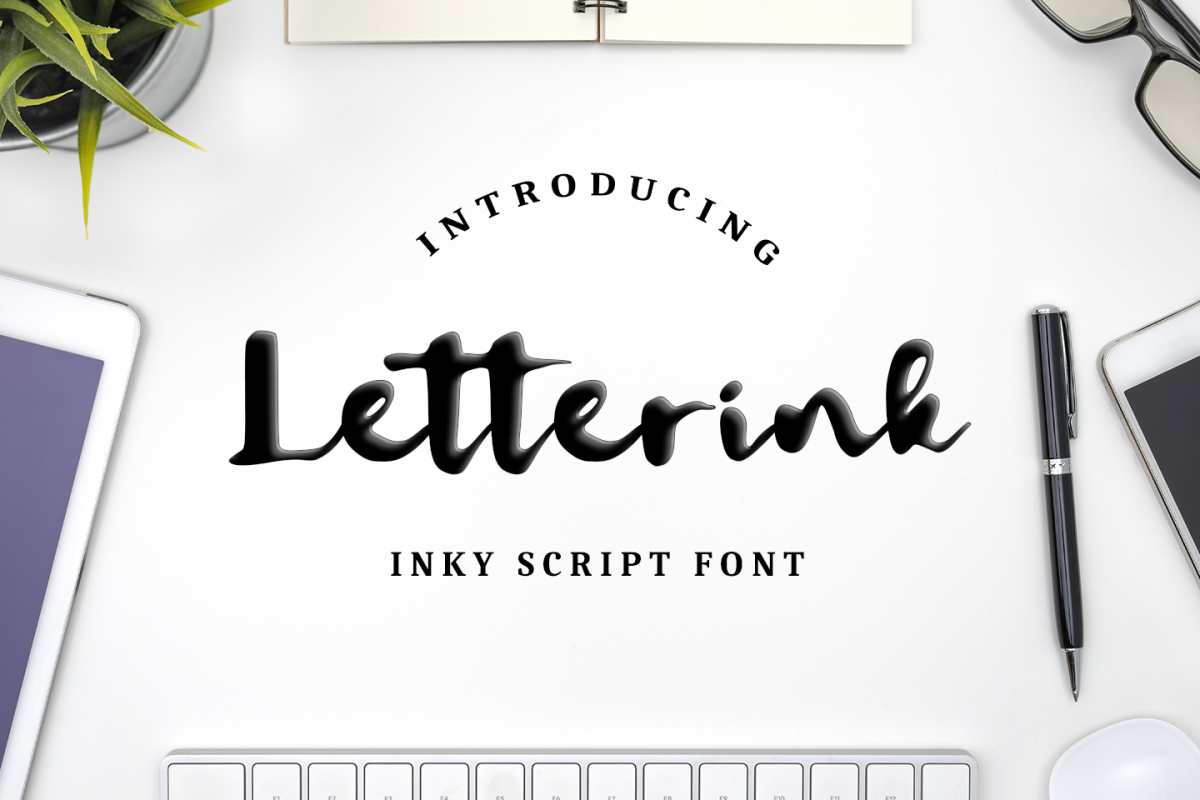
Letterink - inky script -
Letterink
introducing
LETTERINK - the inky script -
carefully unique script
• This font is great for quotes, branding, packaging, wedding card, advertising, and more
• This font is very unique, perfect to give it the ink effect